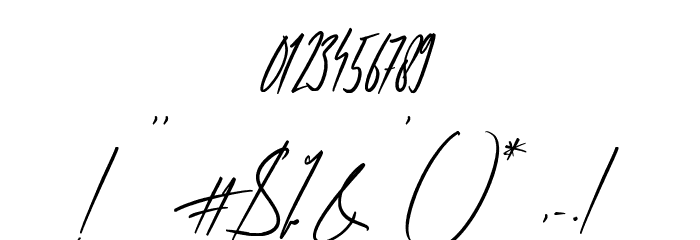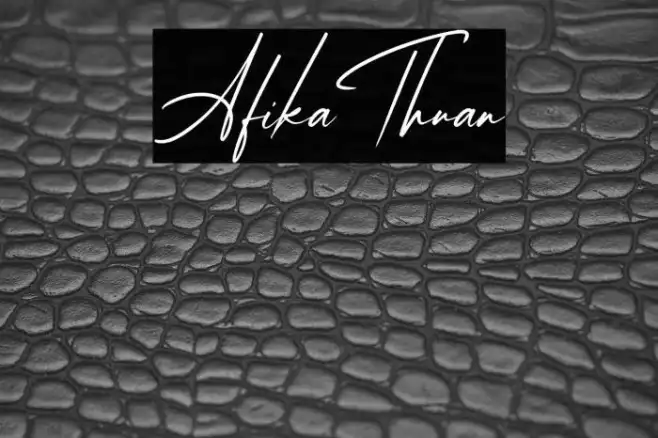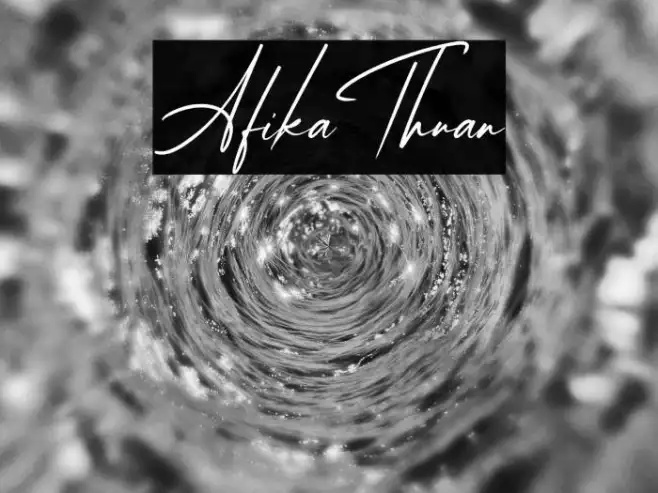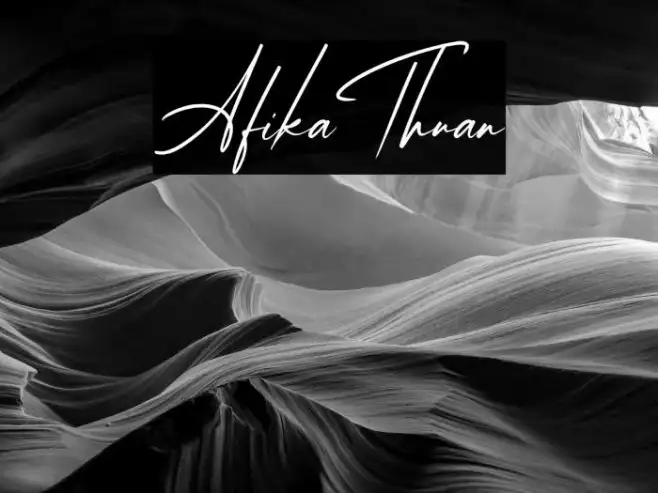
AfikaThuan Font
This font features an elegant, flowing script style that mimics natural handwriting. The characters are connected, with a fluid motion that gives a sense of sophistication and grace. The uppercase letters are slightly larger and more elaborate, while the lowercase letters maintain a consistent, smooth flow. The numbers and special characters are designed to match the overall aesthetic, providing a cohesive look. The font's thin strokes and high contrast between thick and thin lines add to its refined appearance, making it suitable for formal and decorative uses.
An elegant, flowing script font with high contrast and natural handwriting style.
- Font: AfikaThuan
- Proposed Projects: Ideal for wedding invitations, elegant branding, personal signatures, and decorative headings.
- Category: Script
- Character Spacing: Tight
- Overall Style: Elegant, Decorative
- Use Case: Logos, Invitations, Decorative text